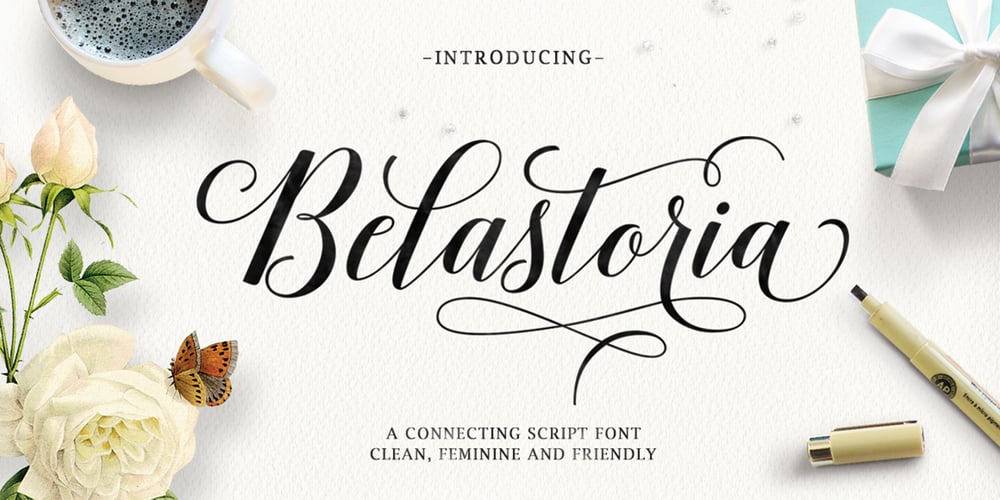
Belastoria Script
Belastoria Script font
Belastoria Script Font Family was designed by Seniors Studio and published by Seniors Studio. Belastoria Script contains 1 styles and family package options. Belastoria Script is a connecting script with a dancing baseline, which is designed to convey elegance and style. It is clean, feminine and friendly. This font works perfectly for logos, magazines, menus, books for children, invitations, wedding / greeting cards, packaging, labels, t-shirt etc. All designs will have a wonderful homemade touch with Belastoria Script. It offers a variety of features such as ligatures, swashes, endings, and many early forms alternately. To unleash your creativity, this font also supports multiple languages.